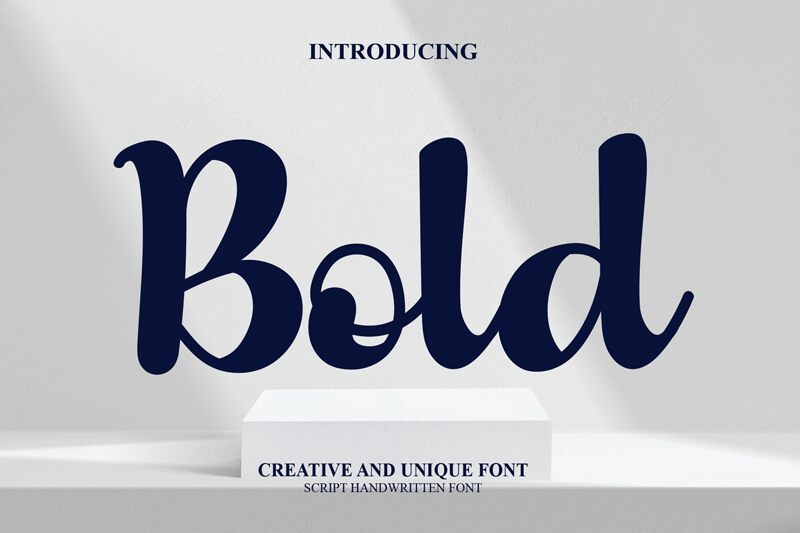
Bold font by Lontong Lodeh is a lively thick handwritten typeface in brush style. It flows nicely with its long curvy strokes that doesn’t strictly adhere to a baseline and expresses loads of creativity. As obvious from its name, it has bold lines with rough edges reminiscent of natural handwritten artwork.
For use in artworks both digital and print, as business cards, packaging designs, posters and album covers. Social media posts can be particularly pleasurable for texting quotes using this free script font!